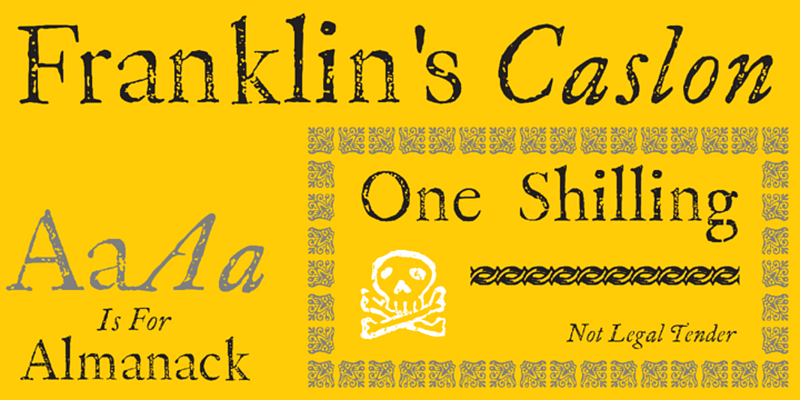
P22 Franklin Caslon specimen
P22 Franklin Caslon
P22 Franklin Caslon includes letterforms digitized from images of impressions made by Benjamin Franklin and his printing office circa 1750, giving an authentic look of Franklin’s actual work.